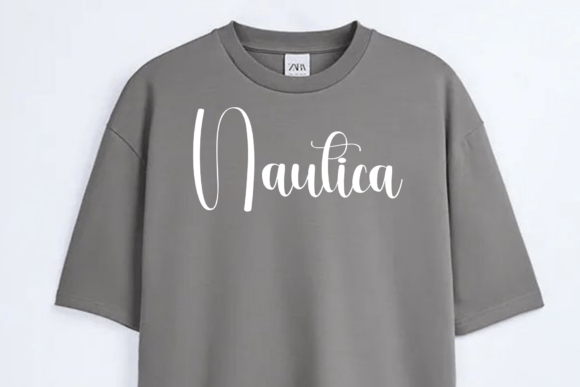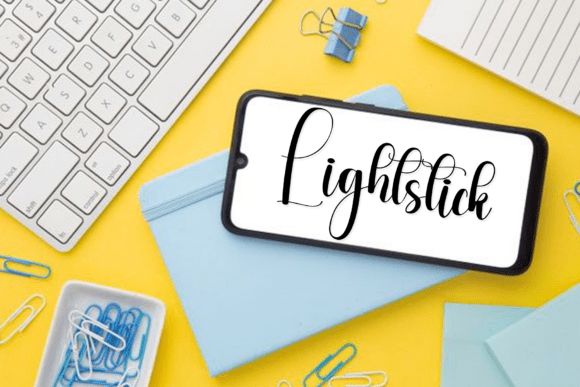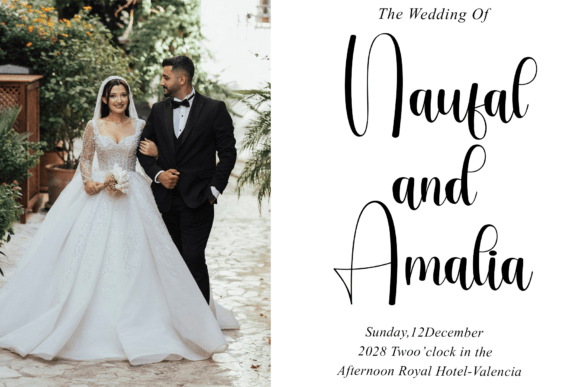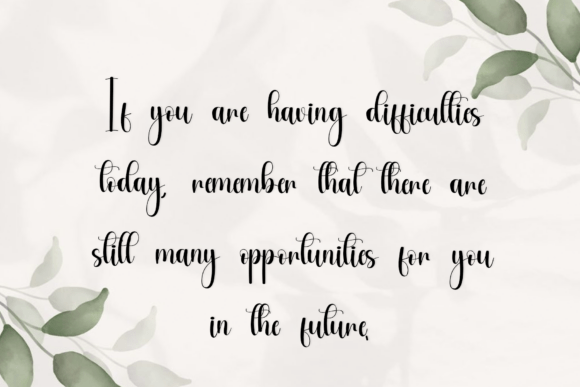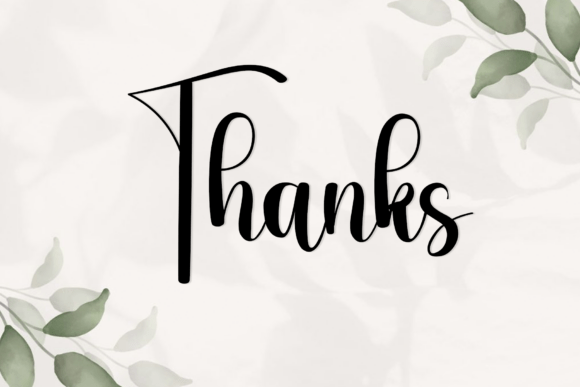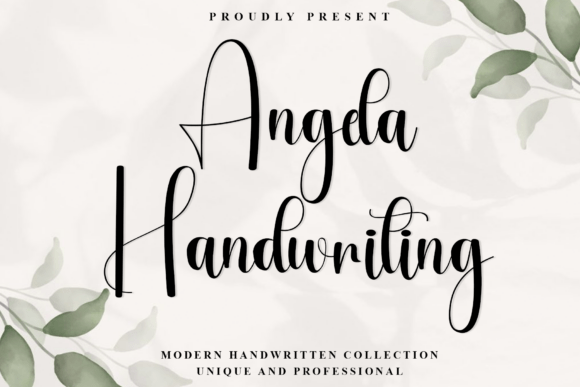
Discover the Elegance of Angela Handwriting Font
- ✅ Luxurious rhythm and botanical romance that adds a touch of elegance to any design
- ✅ Unique and professional script that stands out from the crowd
- ✅ Meticulously optimized for pristine vector flow, ensuring crisp and clean lines
- ✅ Versatile and adaptable to various design projects, from haute couture fashion to luxury branding
While Angela Handwriting Font is an exceptional font, there are a few minor limitations to consider:
- 🤔 May not be suitable for body text due to its elegant, cursive nature
- ⚠️ Some users may find the font’s uniqueness challenging to pair with other fonts
The Designer Inspiration Behind Angela Handwriting Font
Angela Handwriting Font was inspired by the artistic dance of a fine-nib ink pen over luxury cardstock. The designer aimed to create a font that captures the essence of high-end sophistication and elegance. The result is a unique and professional script that adds a touch of luxury to any design.
| What is Angela Handwriting Font best suited for? | Angela Handwriting Font is ideal for luxury branding, haute couture fashion lookbooks, elegant wedding invitation suites, custom photography watermarks, and fine wine or boutique product branding. |
| Can I use Angela Handwriting Font for body text? | While Angela Handwriting Font is an elegant font, it’s not recommended for body text due to its cursive nature. It’s best suited for headlines, titles, or short paragraphs. |
| Is Angela Handwriting Font suitable for digital use? | Yes, Angela Handwriting Font is optimized for digital use and can be used for various digital projects, including social media graphics, presentations, and website headers. |